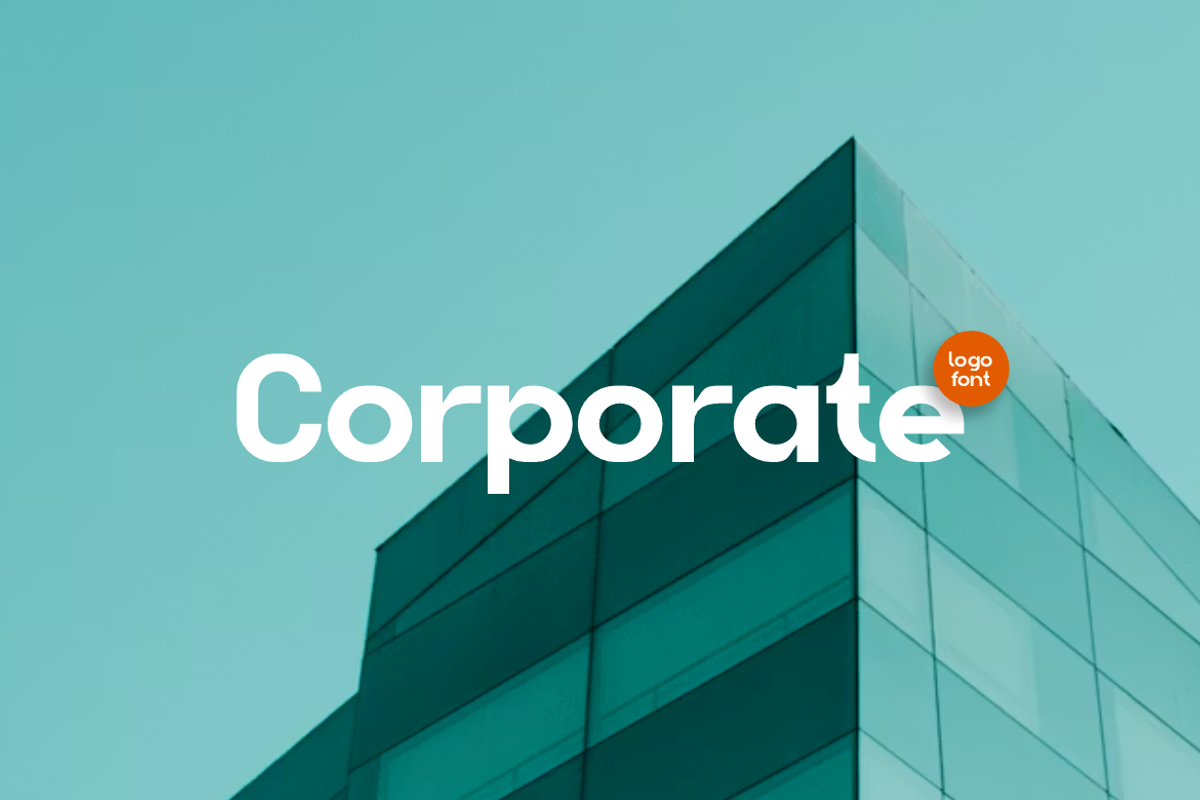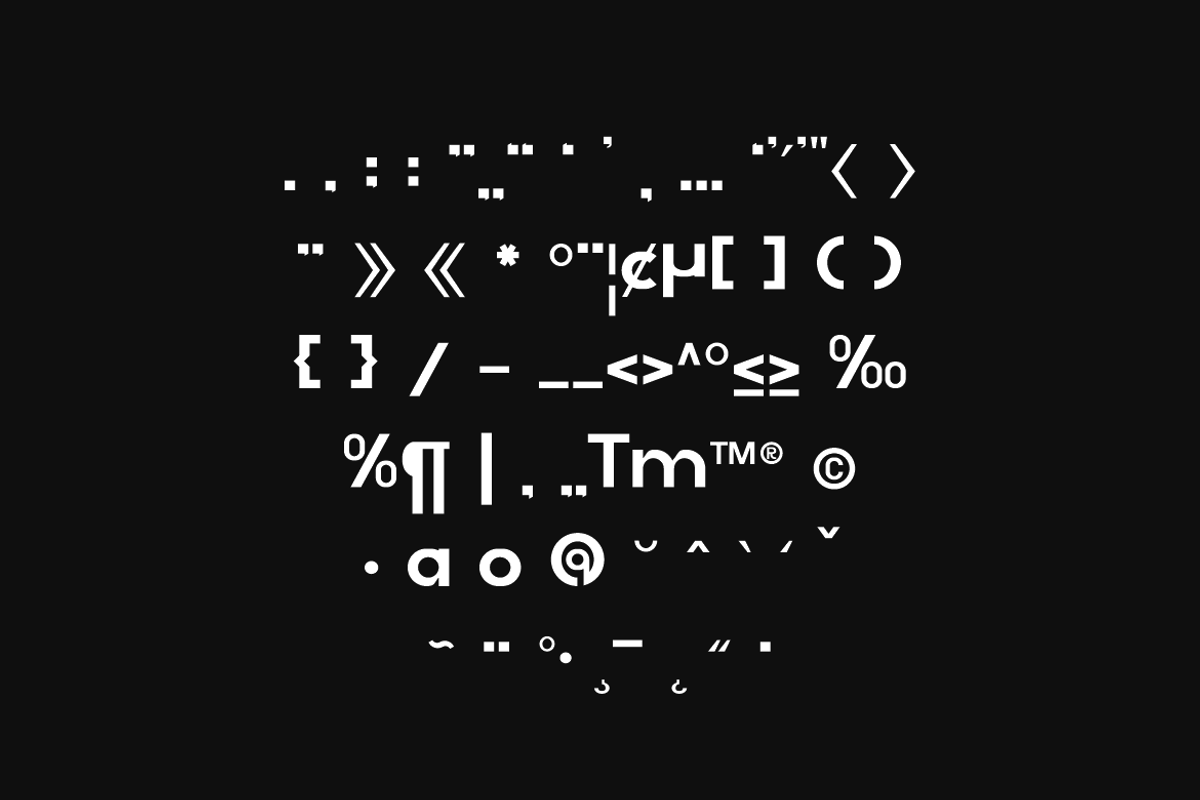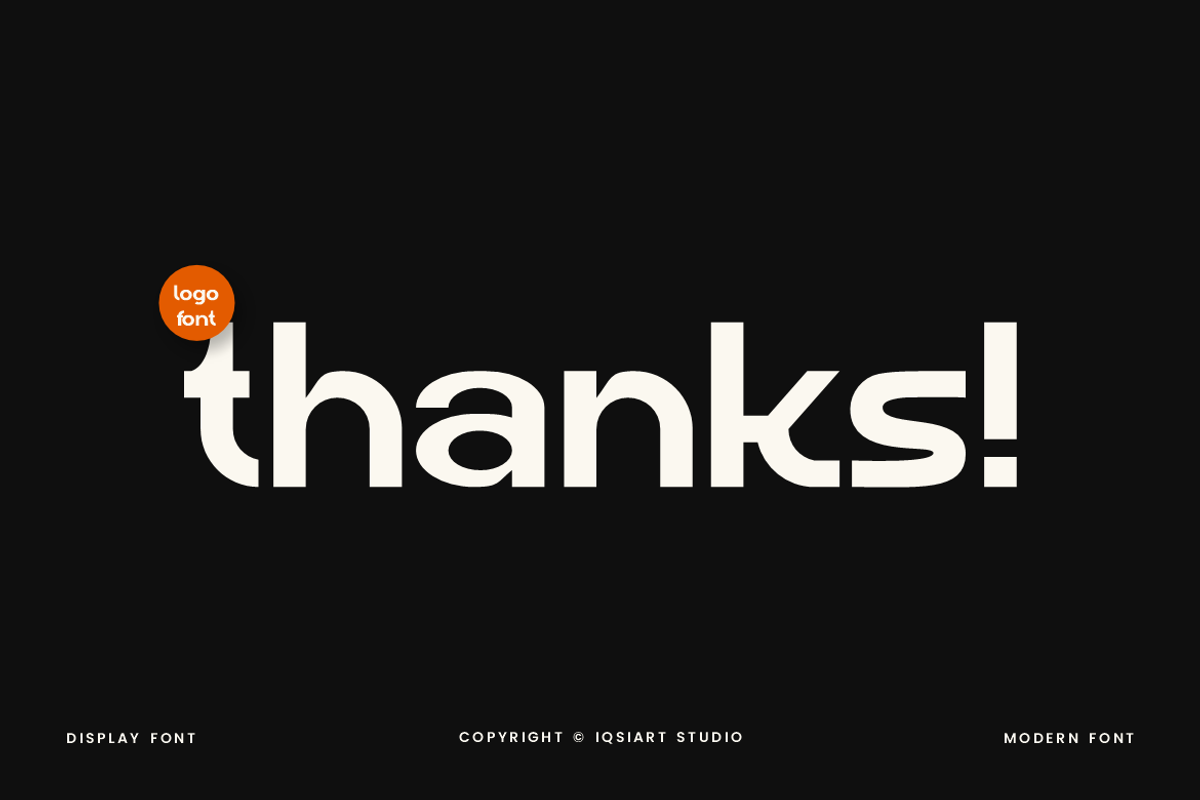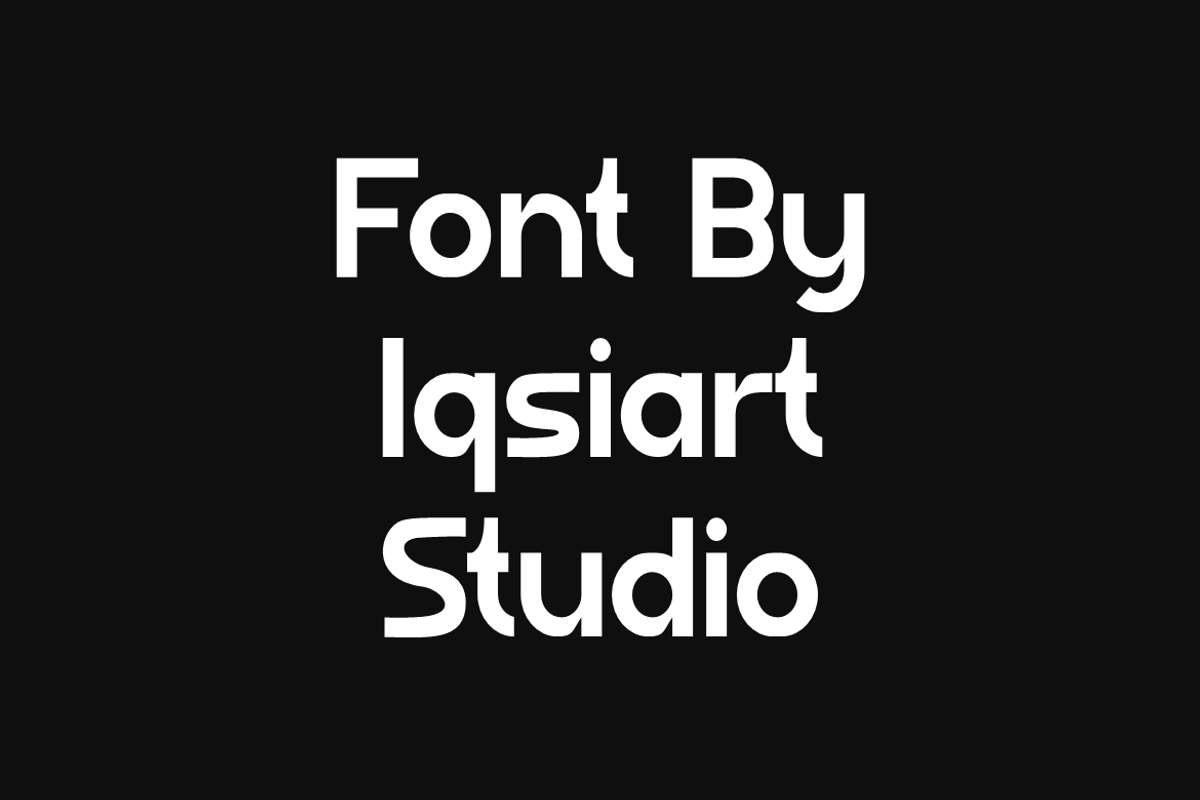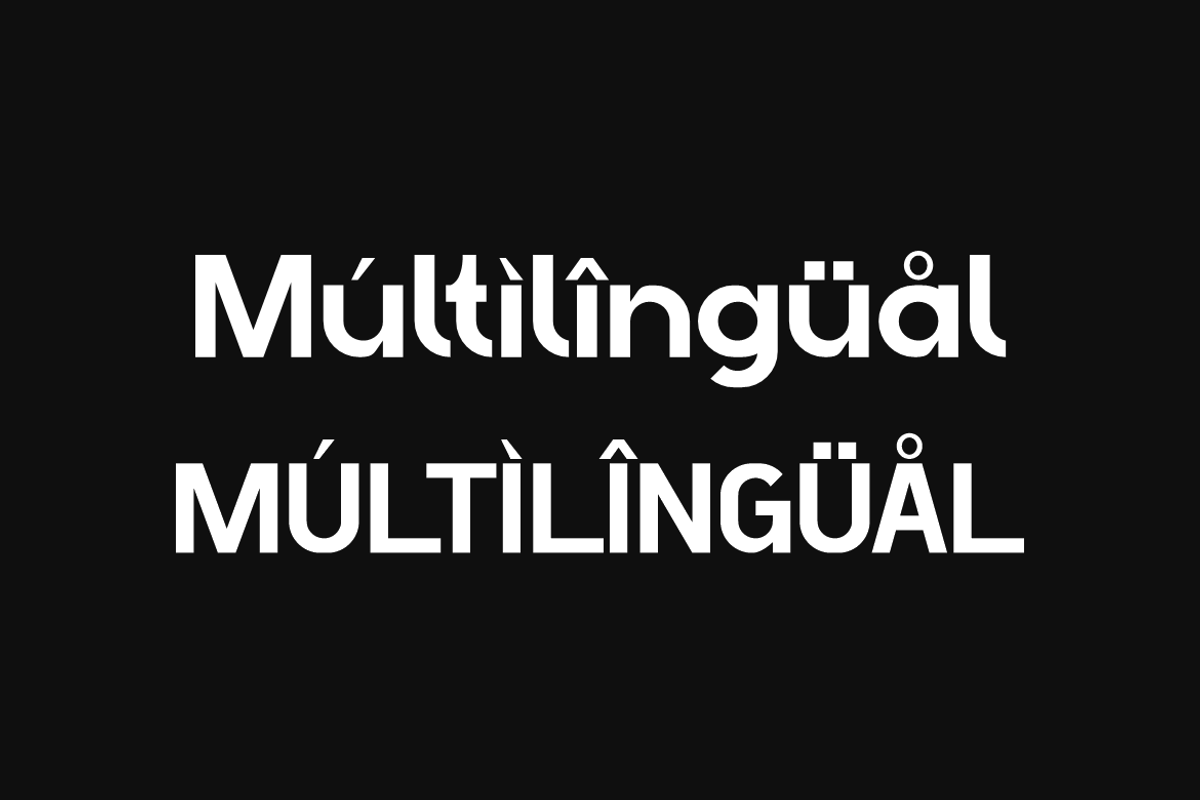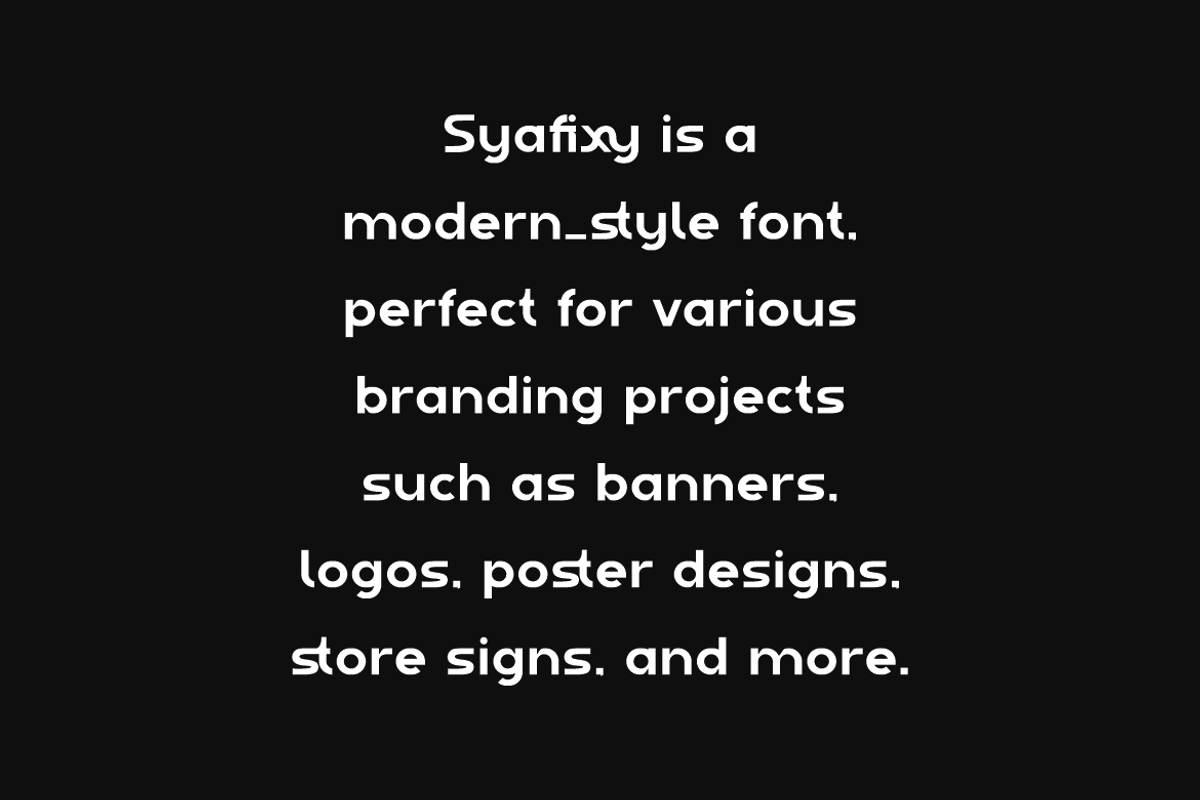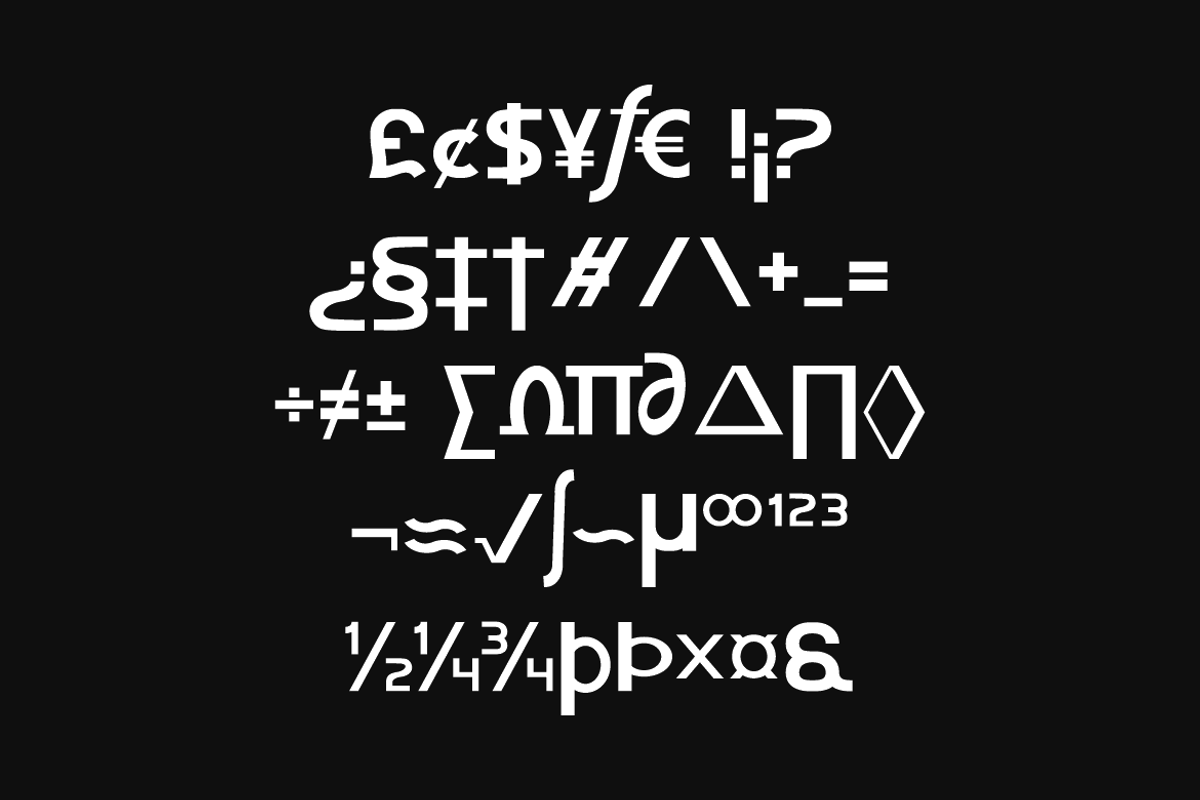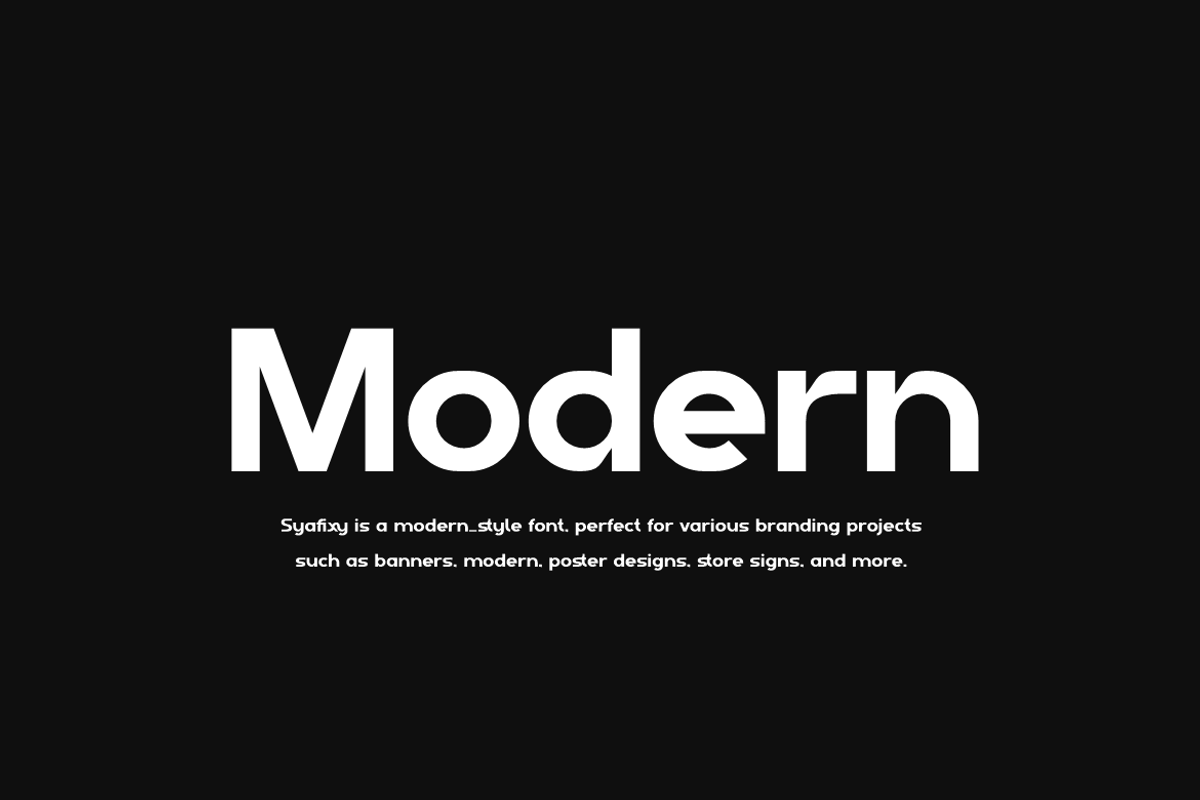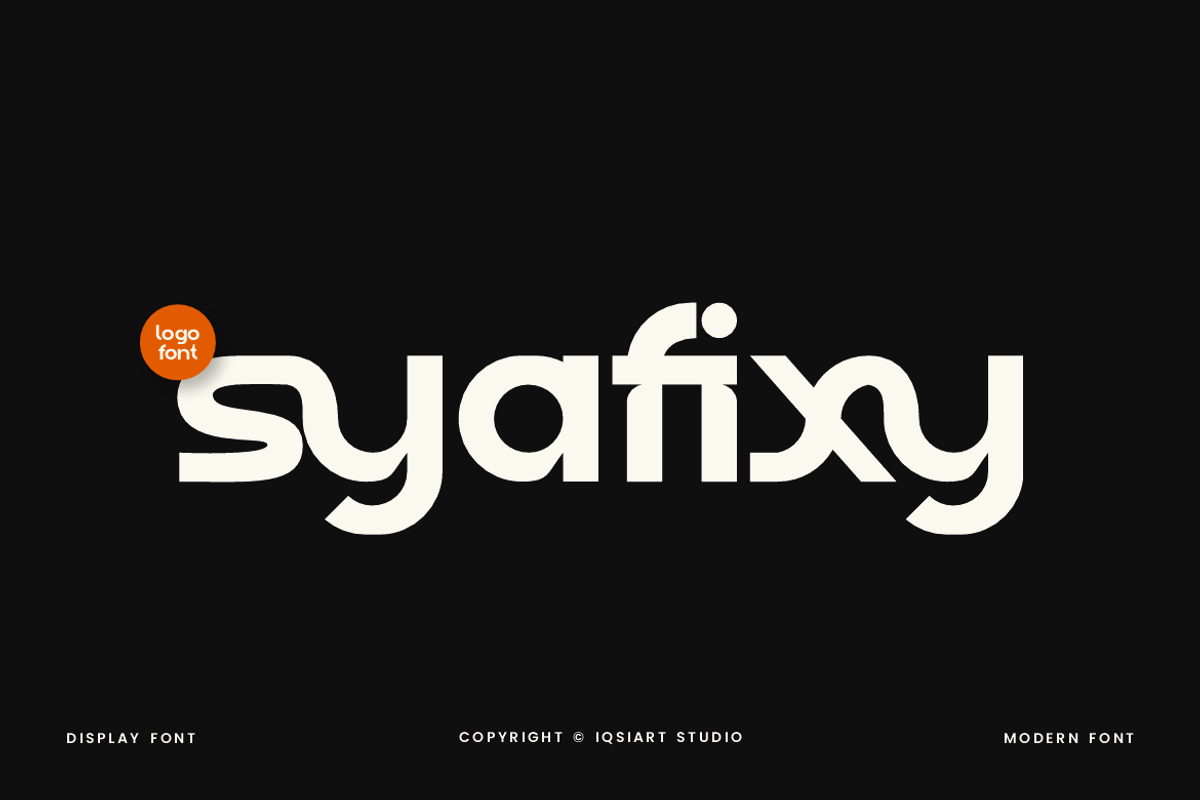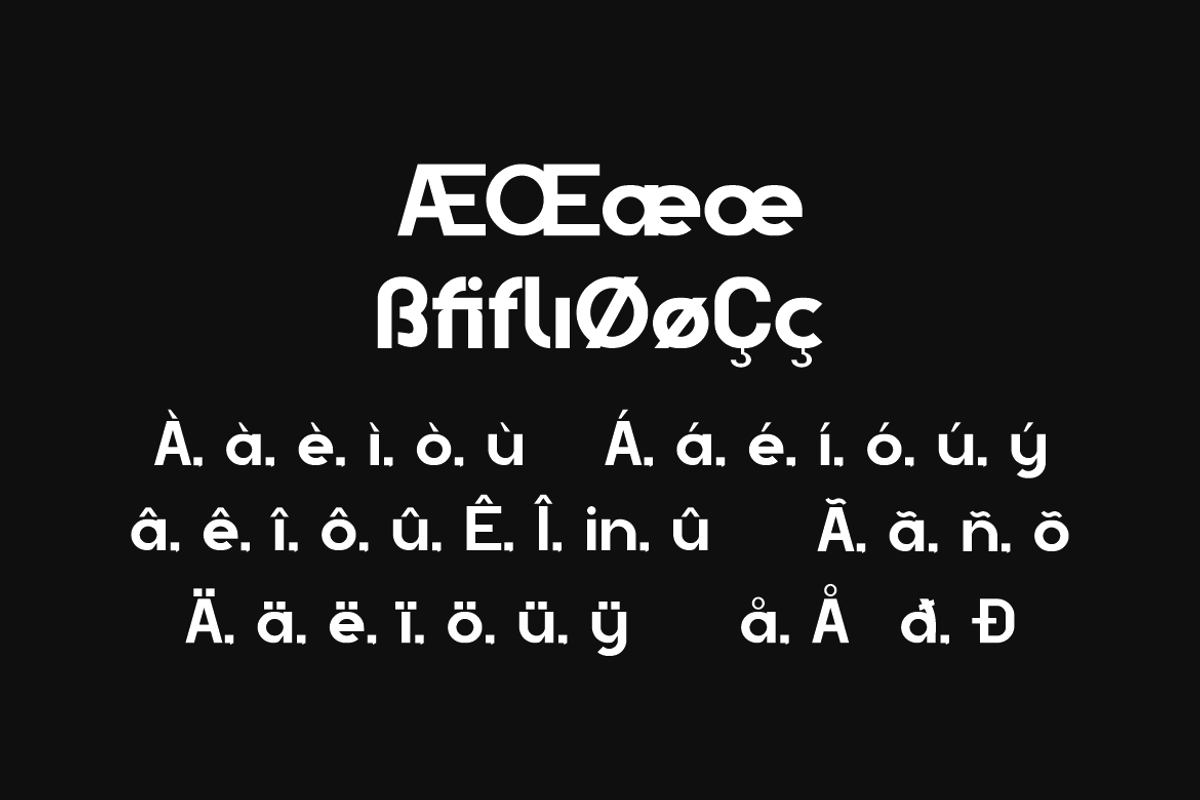
Syafixy - Ligatures Logo Font
Syafixy Font is a bold and authentic display typeface that suits a variety of design needs. We offer a wide range of themes and font styles — visit our profile to explore more and find the perfect style for your project.